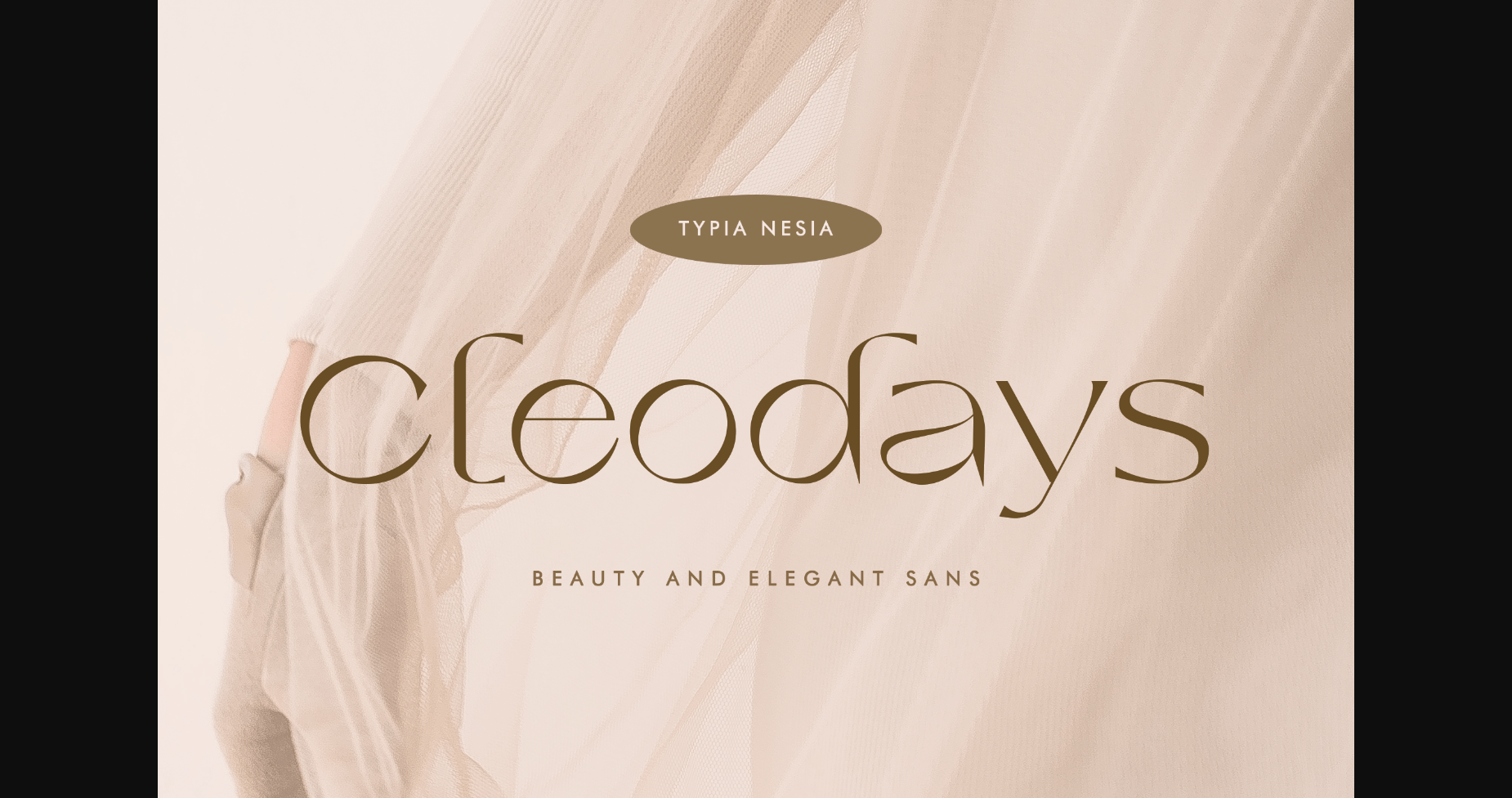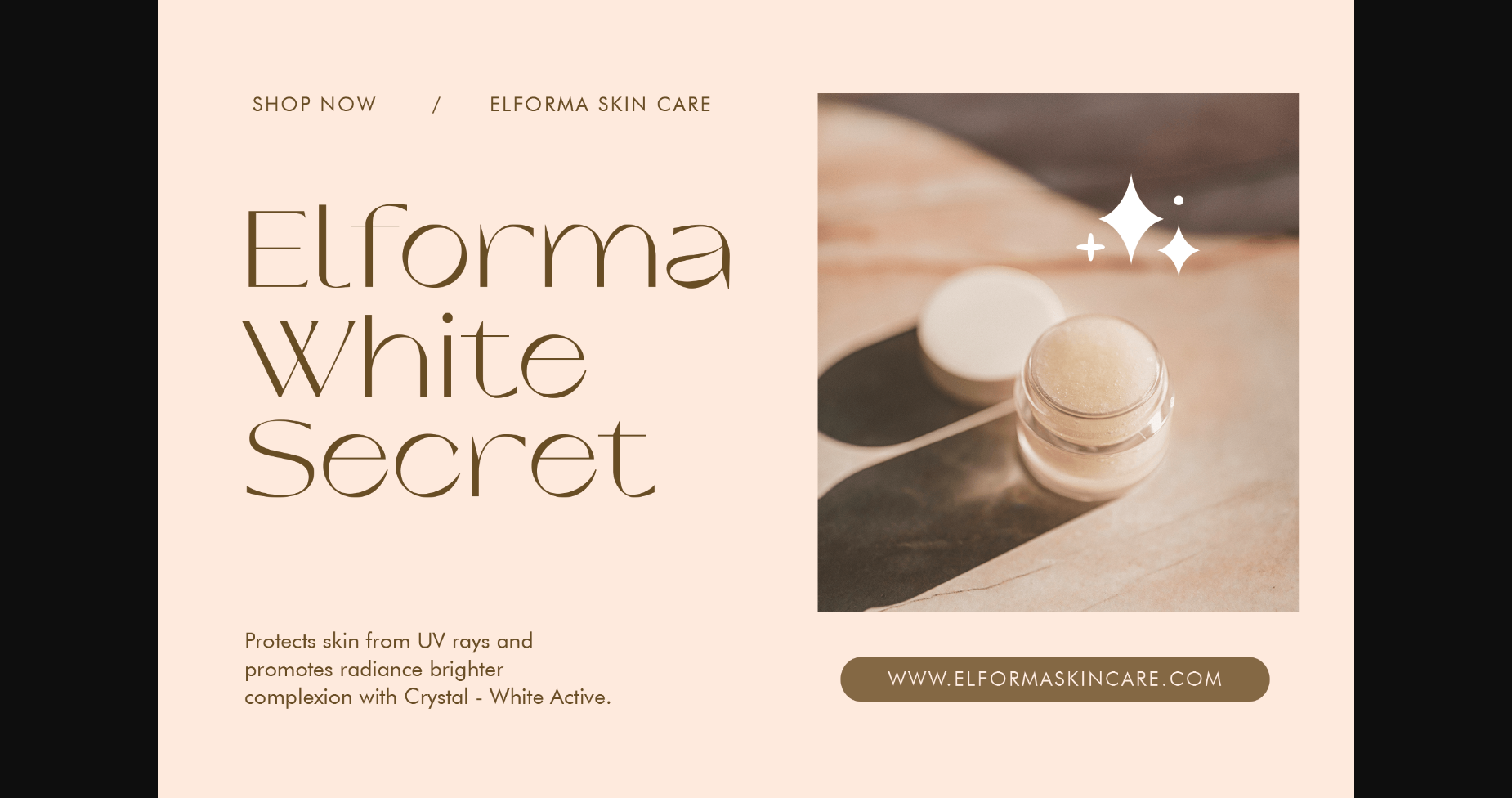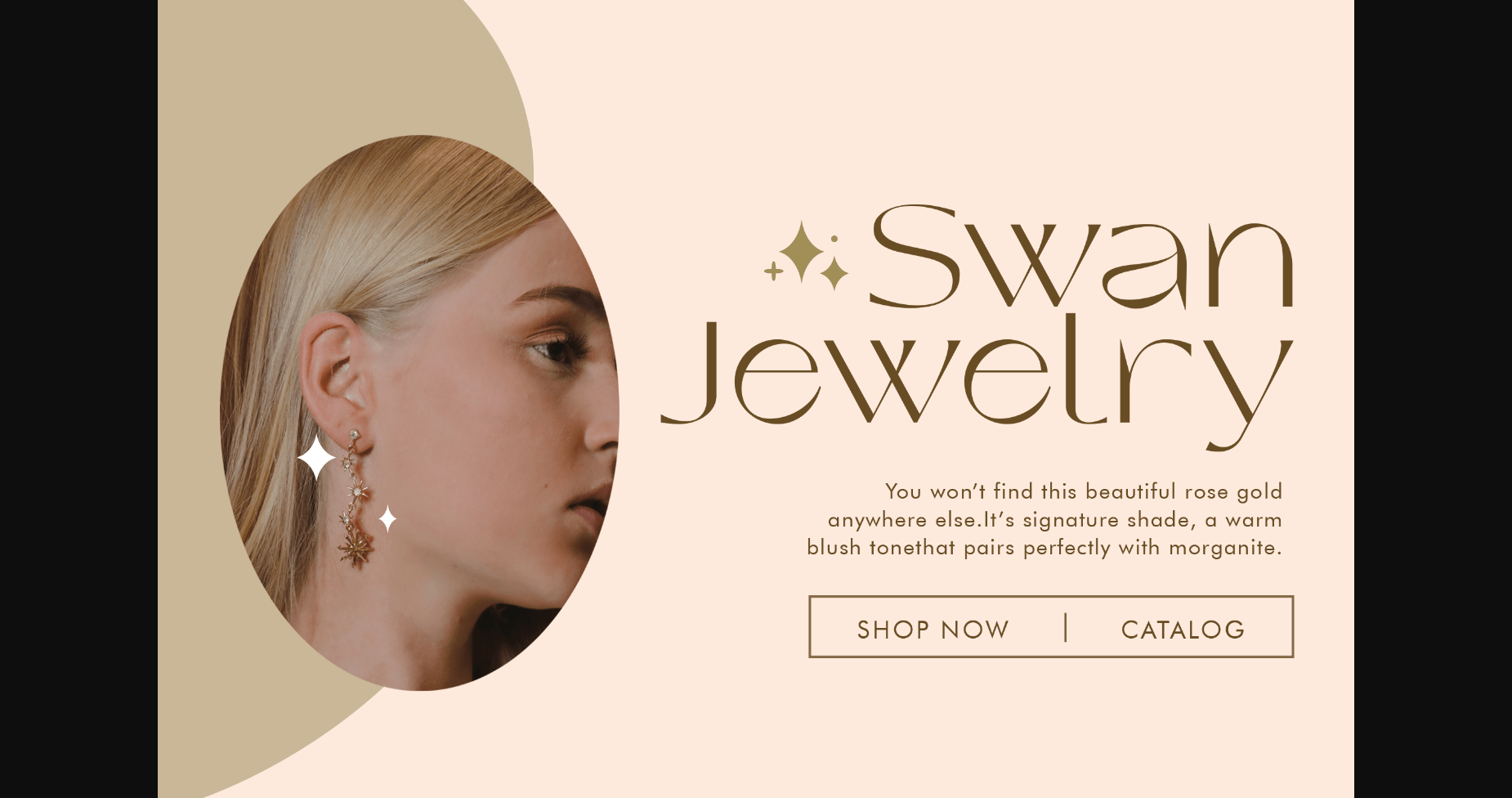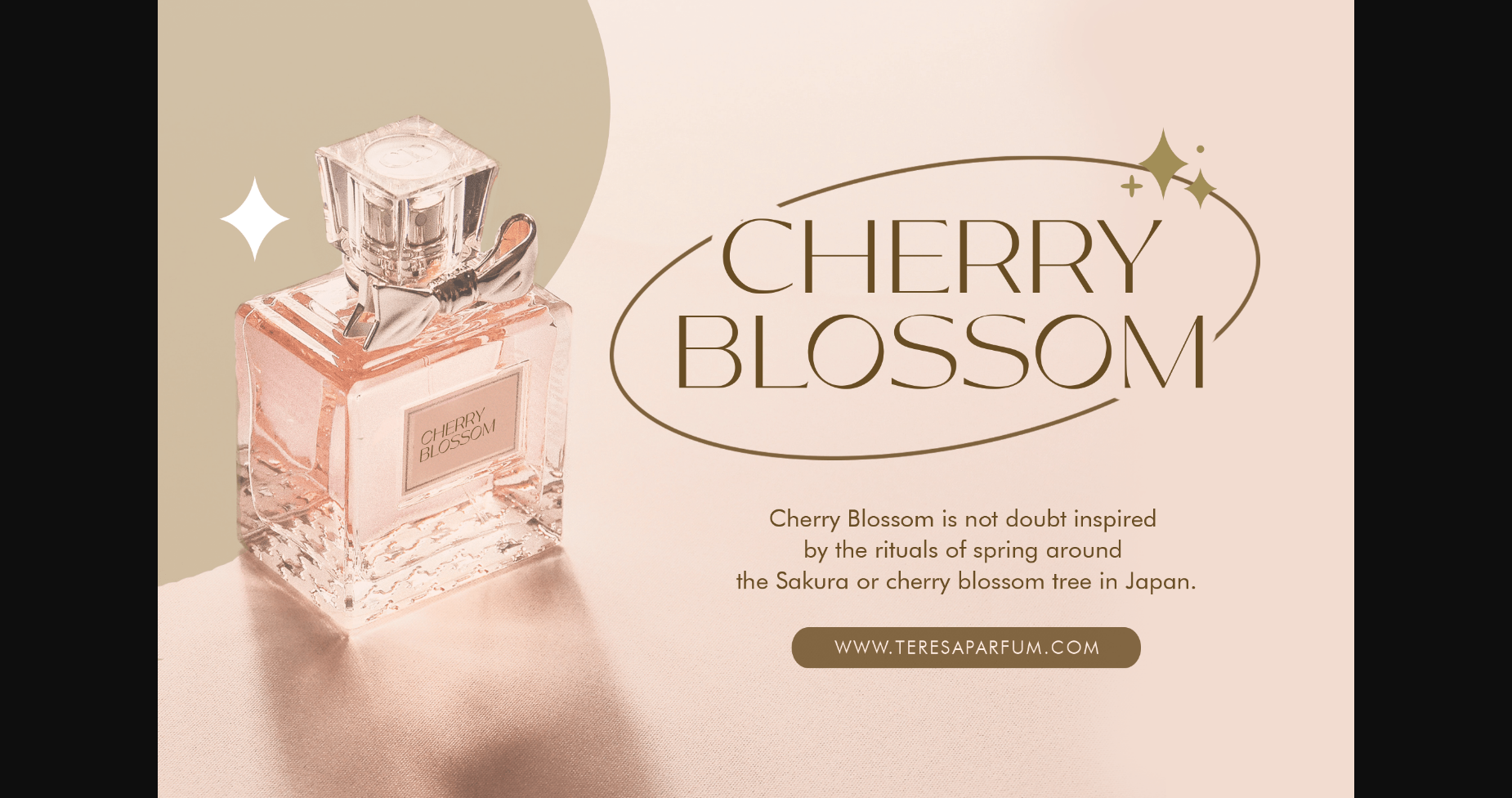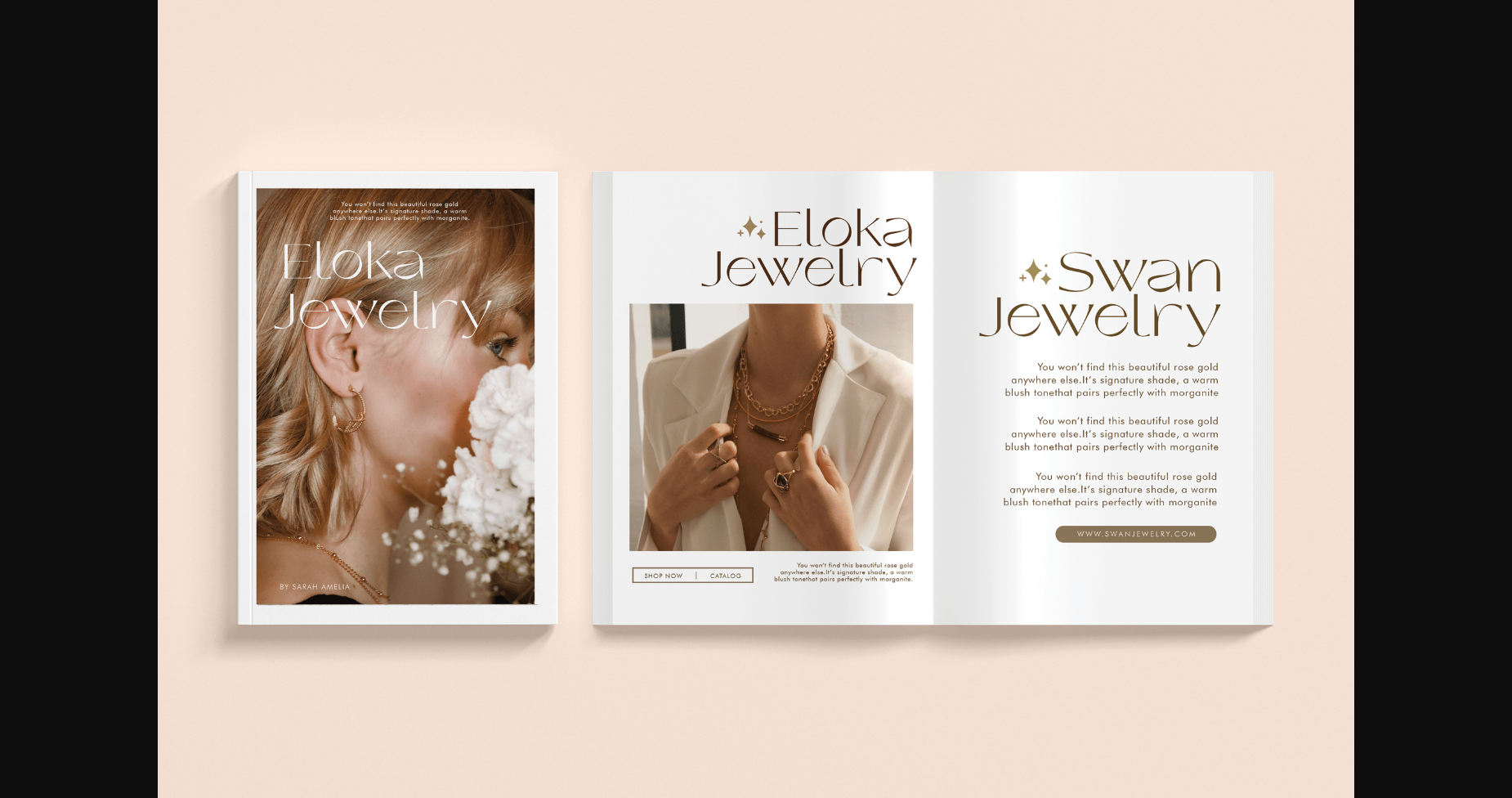
About Cleodays Font
Cleodays – Beauty Elegant Aesthetic Expanded Sans Serif – Expressive Feminine Logo Branding Font
Cleodays comes with some alternates and ligatures, so you can combine them to make a perfect typography design. It is perfect for your upcoming projects, such as luxury logo and branding, classy editorial design, woman magazine, cosmetic brand, fashion promotional, art gallery branding, museum, historical architecture, boutique branding, stationery design, blog design, modern advertising design, card invitation, art quote, home decor, book/cover title, special events, and more.